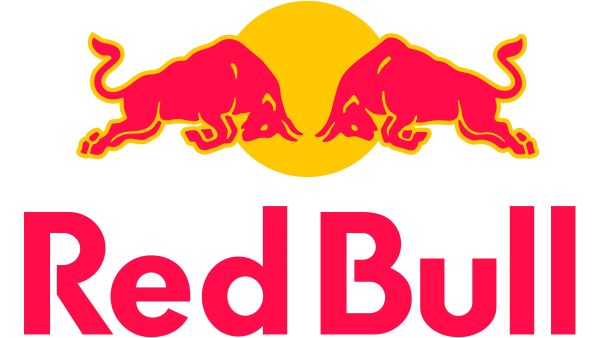
Red Bull Font
What Font is Red Bull?
Red Bull font uses a modified version of Futura, with the closest match being Futura SH-Dem Bold featuring customized “R” and “B” characters that create the brand’s distinctive logo. The font’s bold, geometric sans-serif design with sleek, modernist letterforms perfectly embodies Red Bull’s high-energy identity and extreme sports associations. Its clean, powerful aesthetic conveys speed, vitality, and cutting-edge performance, reflecting the brand’s slogan “Red Bull Gives You Wings” and its connection to adrenaline-fueled activities worldwide.